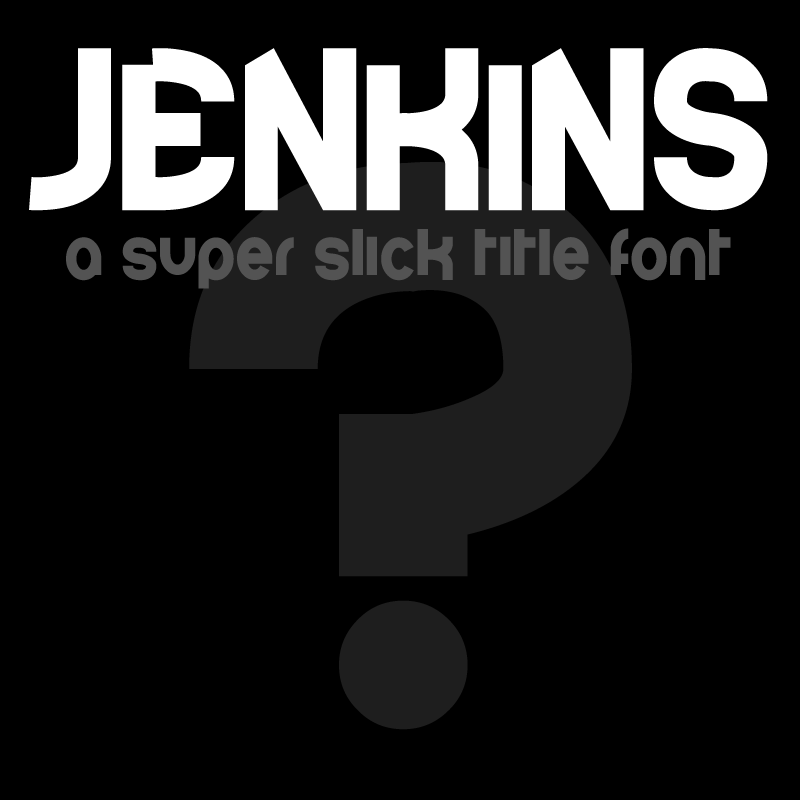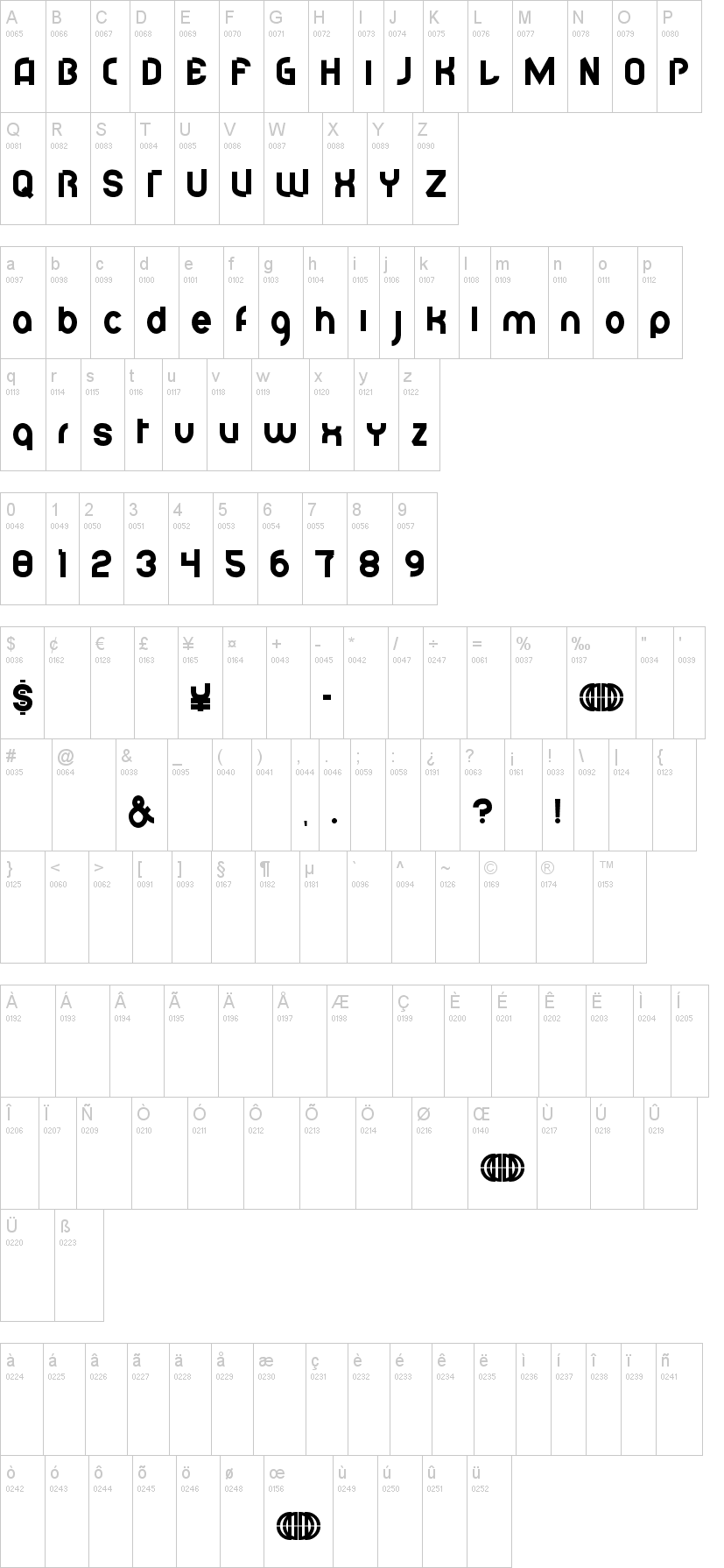
This font is was created for my game design partner, the Elusive Jenkins. This is a Comic Style font that would be excellent for Titles, Logo Type, or other Comic Book or Artistic applications. It has a slight Anime-ishness to it as well.